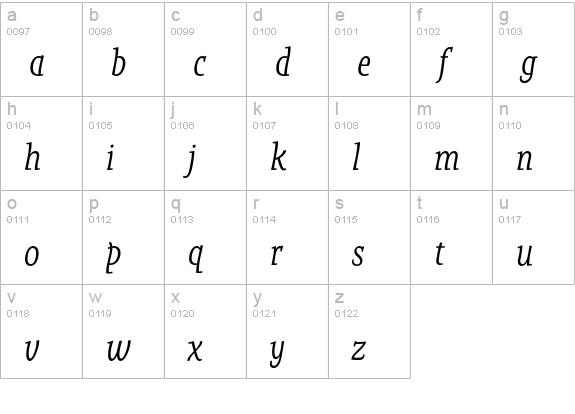
Poseidon-Italic Font Details
Poseidon-Italic is a distinctive, italic variant in the Poseidon typeface family \xE2\x80\x94 well suited to design and typography projects.
Introducing Poseidon-Italic font - a stunning typeface that exudes elegance and sophistication. With its sleek and flowing italic design, Poseidon-Italic adds a touch of luxury to any project. Perfect for creating eye-catching headlines, invitations, and branding materials, this font is sure to make a lasting impression. What's even better is that Poseidon-Italic is available for free download at FontsMarket.com. Now you can elevate your designs with this exquisite font without breaking the bank. Don't miss out on the opportunity to add Poseidon-Italic to your font collection today!